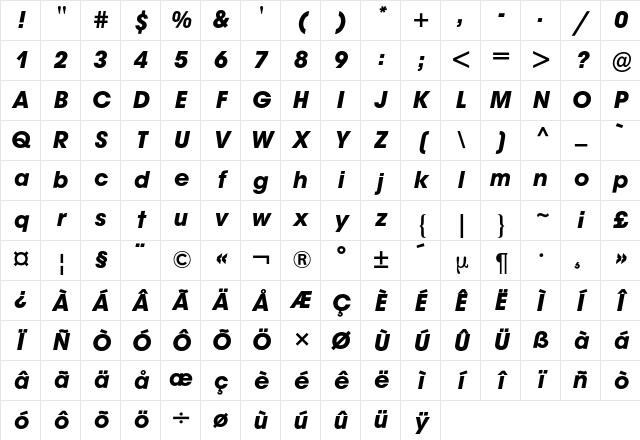
Avant Garde BQ Regular
Complete Avant Garde BQ Regular glyph index. Displaying only characters natively supported by Avant Garde BQ Regular font.
Design Context for Avant Garde BQ
Avant Garde BQ is a composed and adaptable typeface that performs quietly and consistently across a wide range of design contexts.
Pro Tip: Use Avant Garde BQ in both headline and body roles to test its range before committing to a single application.